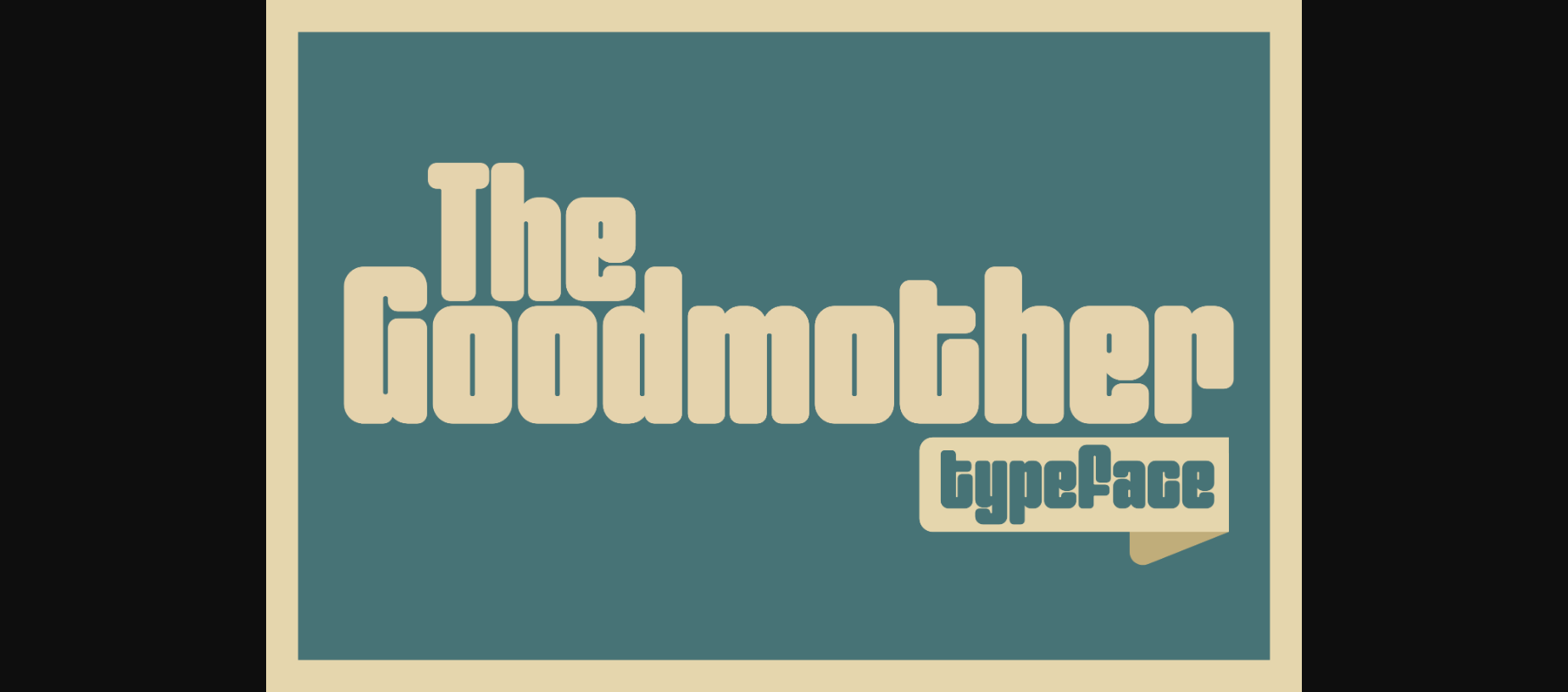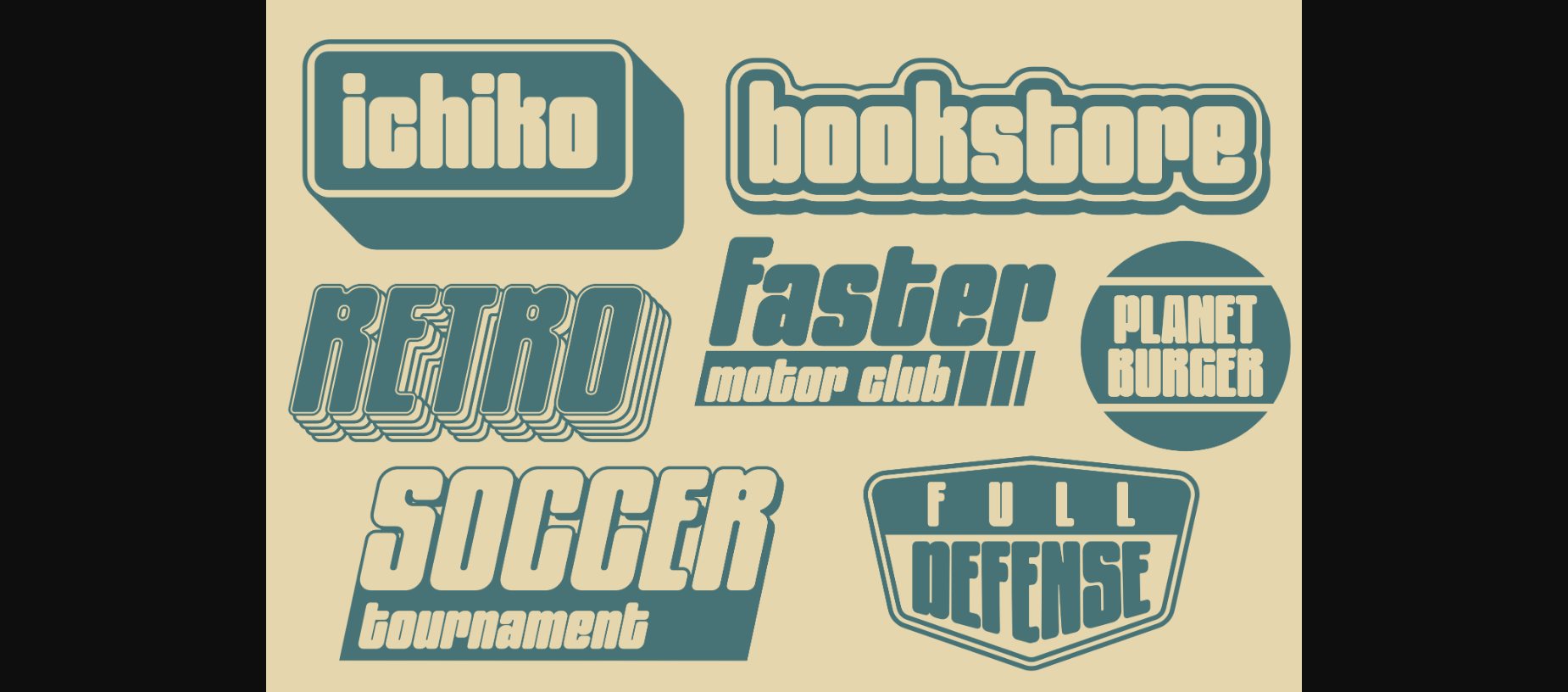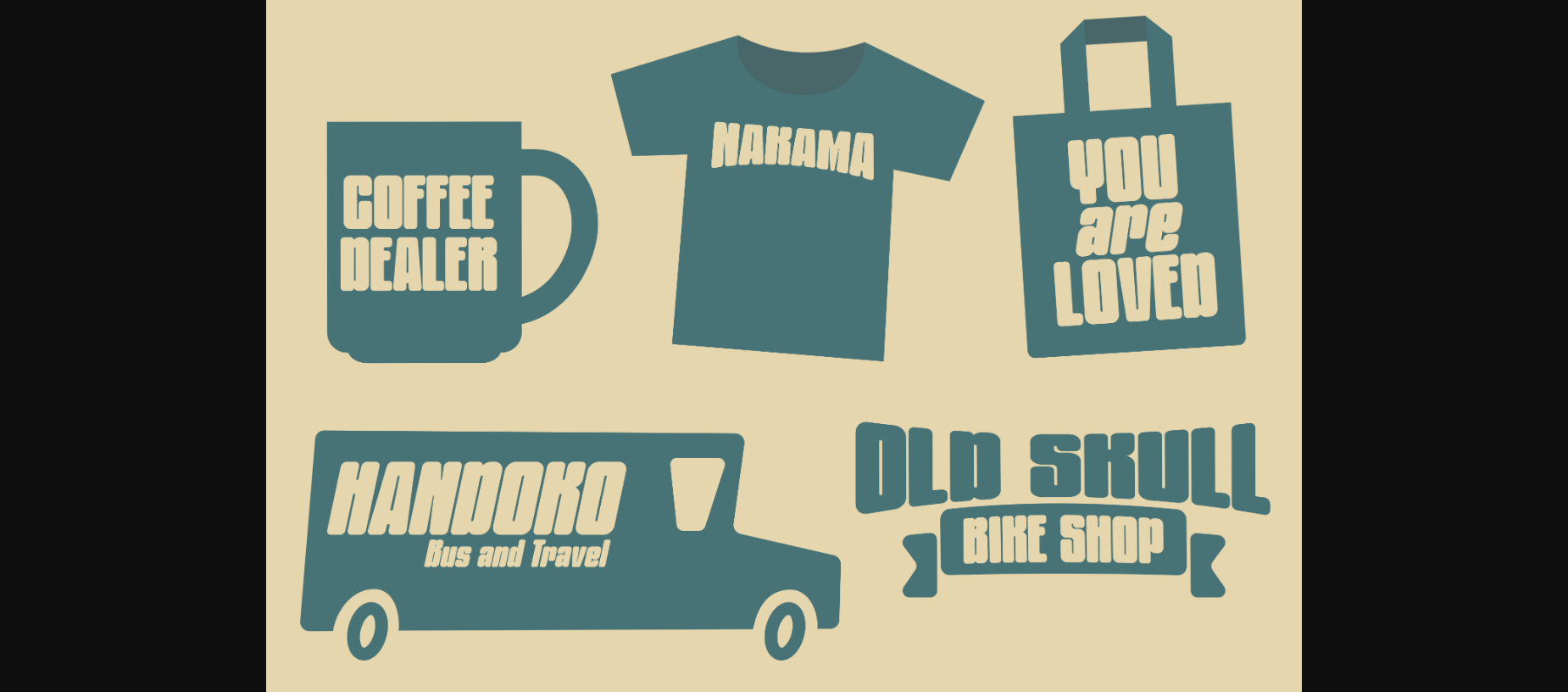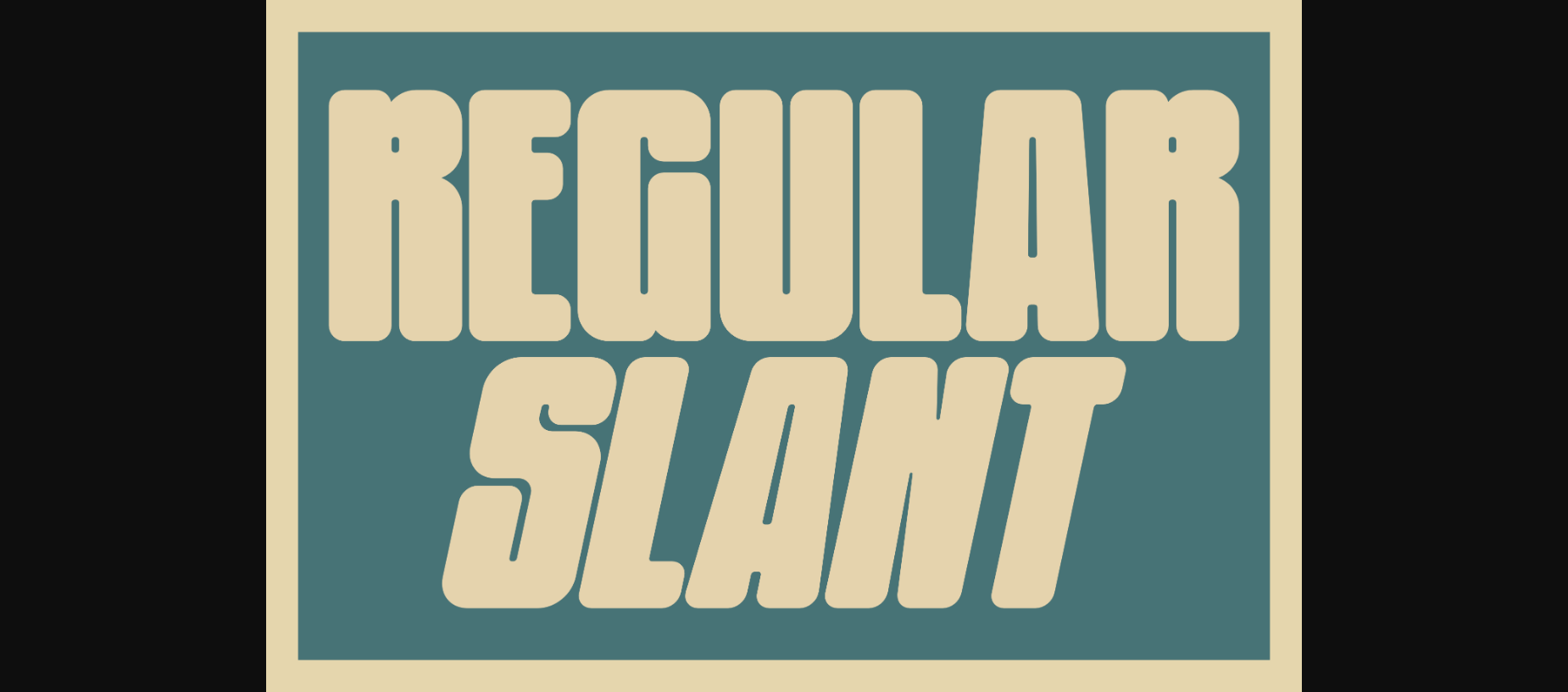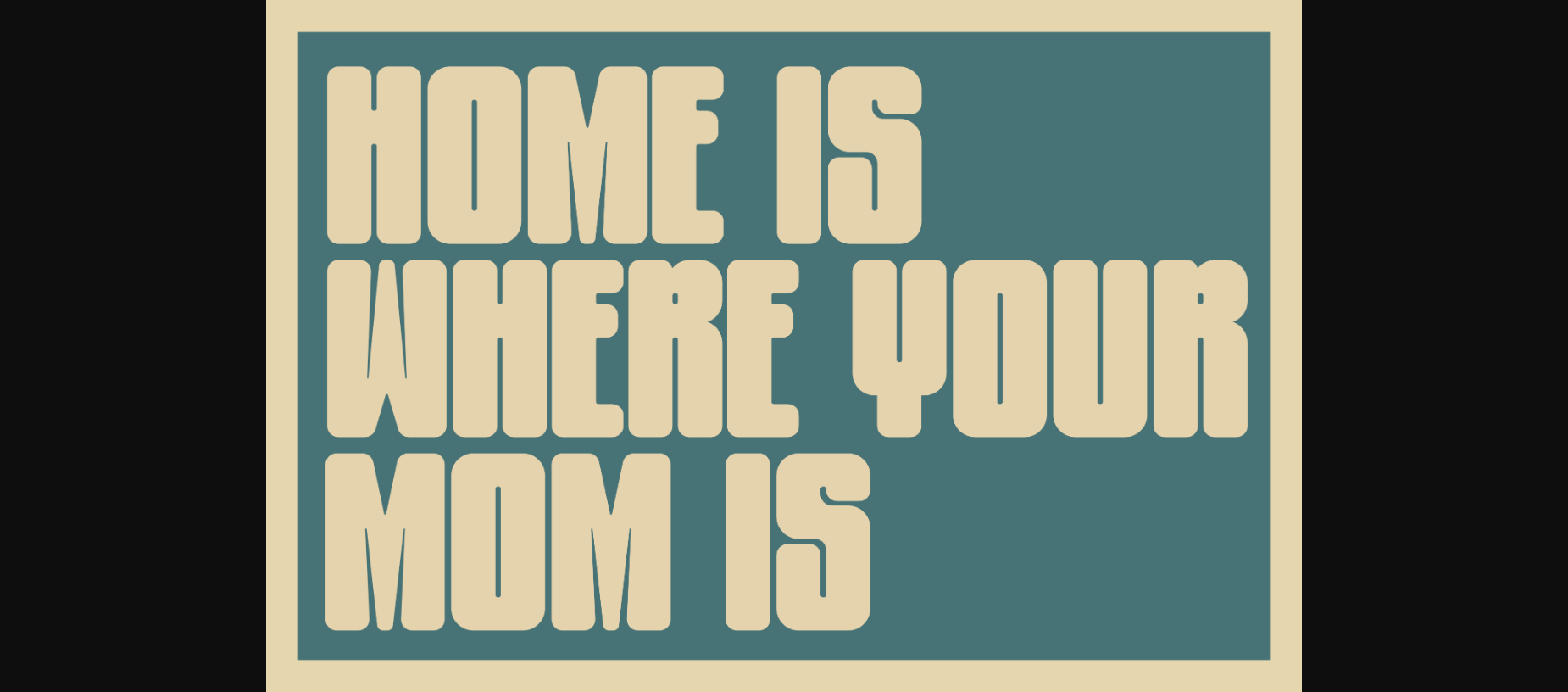
About The Goodmother Font
The Goodmother is a condensed sans serif with vintage yet modern look. It comes in 2 styles, regular and slant with soft edge. This font will give your artwork a bold and dramatic statement with its super easy legible typestyle. you can use it for many kinds of projects, like posters, logos, labels, packaging, quotes, social media, youtube video, stationary, book covers, stickers, price tags, crafts and more. Use it to add that special retro touch to any design idea you can think of!